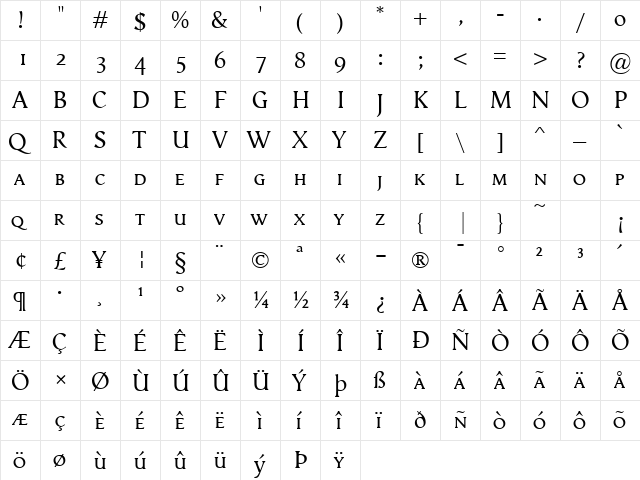
Vega antikva SmallCaps Regular
Design Context for Vega antikva SmallCaps Typeface
Vega antikva SmallCaps takes a measured approach to typography — its balanced proportions and neutral character make it a reliable workhorse for both digital and print work.